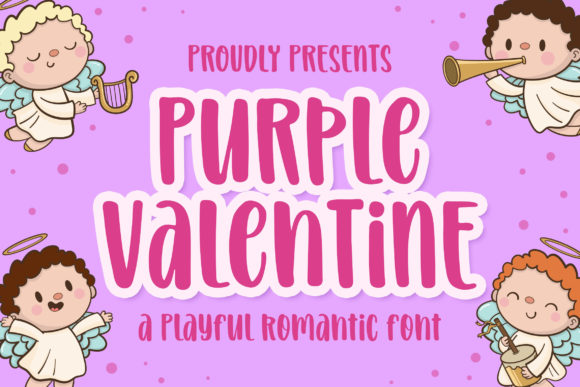
Welcome to the world of Purple Valentine, a display font that radiates inspiration and playfulness. Dive into the realm of visual expression with this captivating font, meticulously crafted by Blankids Studio. Purple Valentine isn't merely a font; it's an artistic masterpiece waiting to be unleashed upon your creative projects.
Immerse yourself in the charm of Purple Valentine, a font that dances across the page with its unique rhythmic flow. It's more than just a collection of letters; it's a symphony of strokes, a harmonious blend of curves and angles that paint a picture of joy and delight. Let your imagination soar as you explore the limitless possibilities of Purple Valentine.
With Purple Valentine, you'll discover a universe of design opportunities. Craft stunning valentines cards that overflow with affection, design book covers that captivate readers from afar, create posters that command attention like a magnet, and develop packaging that leaps off the shelves, demanding to be noticed. Unleash your inner artist and let Purple Valentine transform your merchandise into conversation pieces, your logotype into an iconic symbol of your brand.
Purple Valentine isn't just a font; it's a gateway to creative fulfillment. Step into this realm of endless possibilities and let your imagination run wild. Experience the joy of self-expression as you craft designs that leave a lasting impression. Let Purple Valentine be your muse, your creative companion, as you weave your artistic tapestry.
Don't let this opportunity pass you by. Embrace the magic of Purple Valentine today and unlock the full potential of your creative genius. Dive into this world of inspiration and playfulness, and let your designs blossom with newfound vibrancy. Purple Valentine awaits your creative touch, ready to ignite your imagination and transform your designs into works of art.